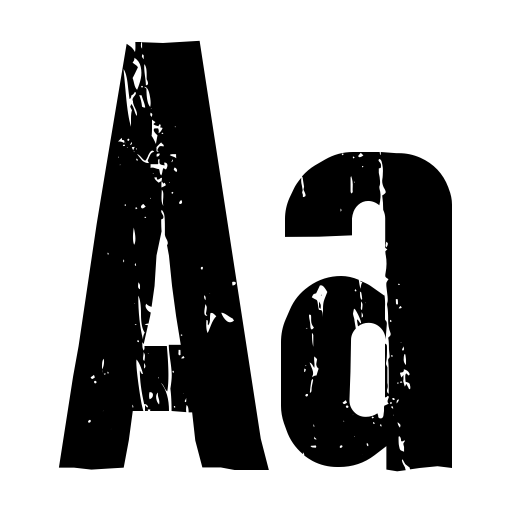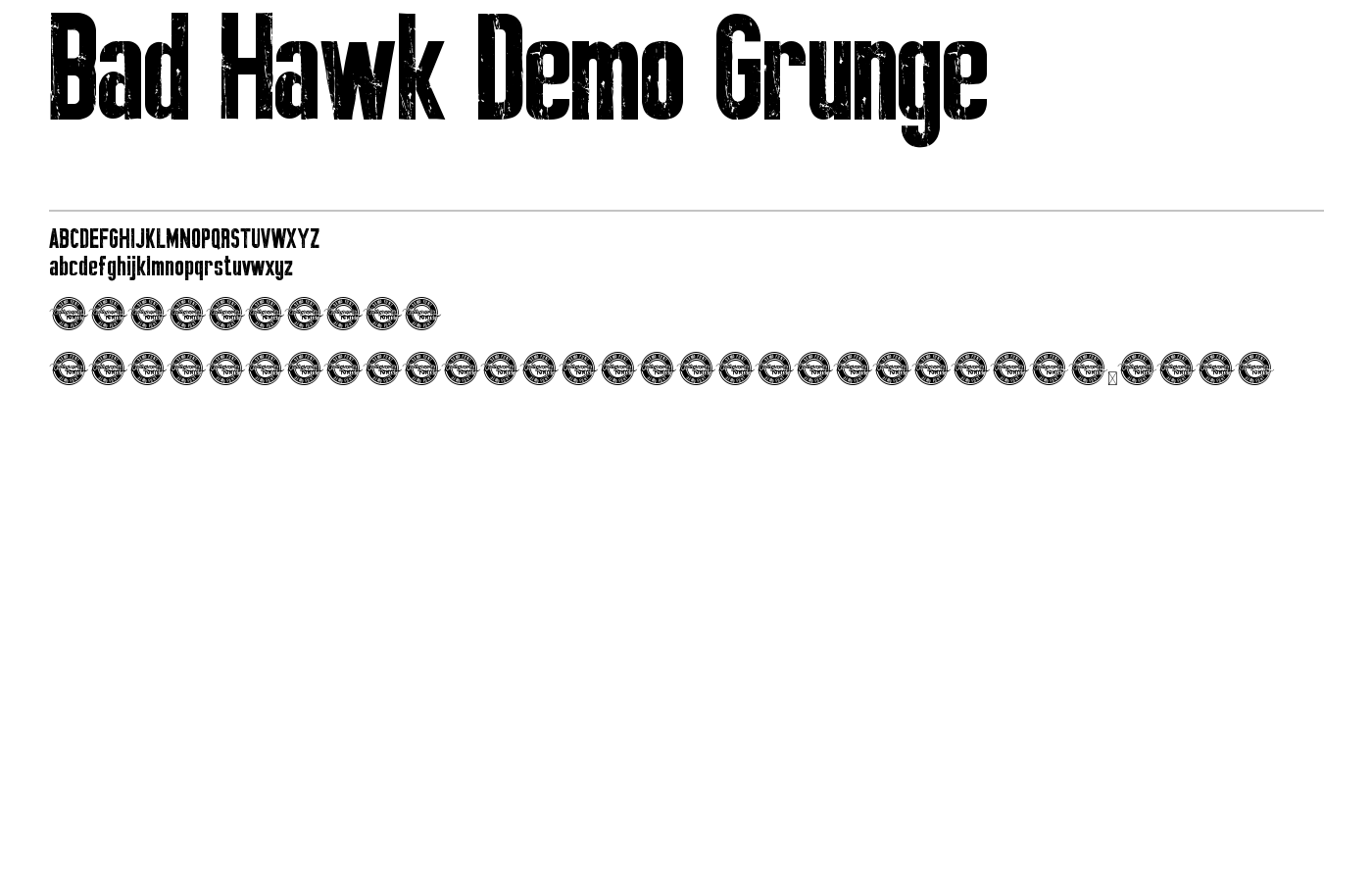
Bad Hawk Demo is a bold, condensed sans serif font with a striking grunge texture that gives it a worn, distressed appearance. Its tall, narrow letterforms and rough edges evoke a rugged, urban vibe, making it ideal for edgy designs, posters, and branding that aims to convey toughness and raw character. This font works best in headlines or display uses where its strong personality can stand out.
Bad Hawk Demo Font
About Bad Hawk Demo Font
| Font family | Bad Hawk Demo Font |
| Designer | Widiyanti & Sarah SP |